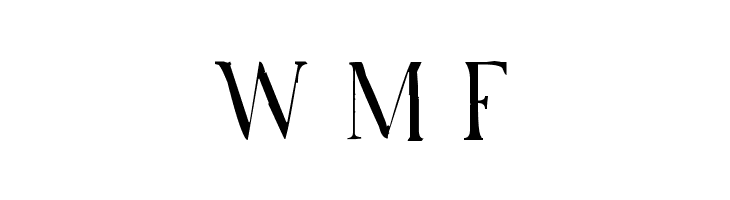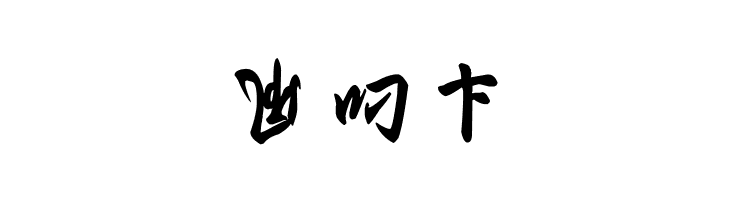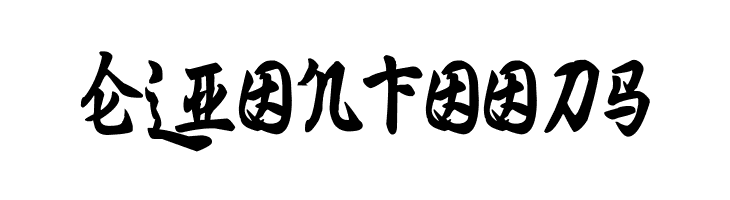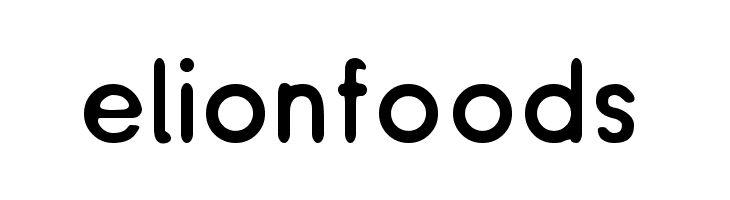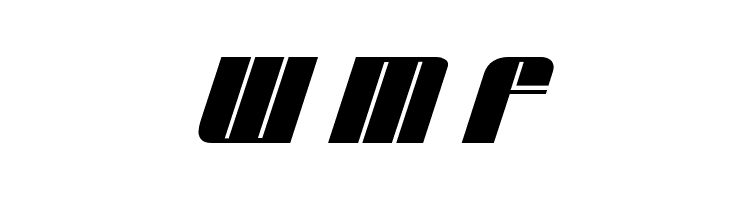
A serif font with a hand-drawn, artistic style and dynamic stroke widths.
A calligraphic font with bold, sweeping strokes and dynamic contrast.
A modern, geometric font with bold, rounded characters and uniform stroke width.
A bold, italic font with angular cuts and a modern, dynamic style.
An ornate and decorative font with intricate flourishes, ideal for regal and elegant designs.